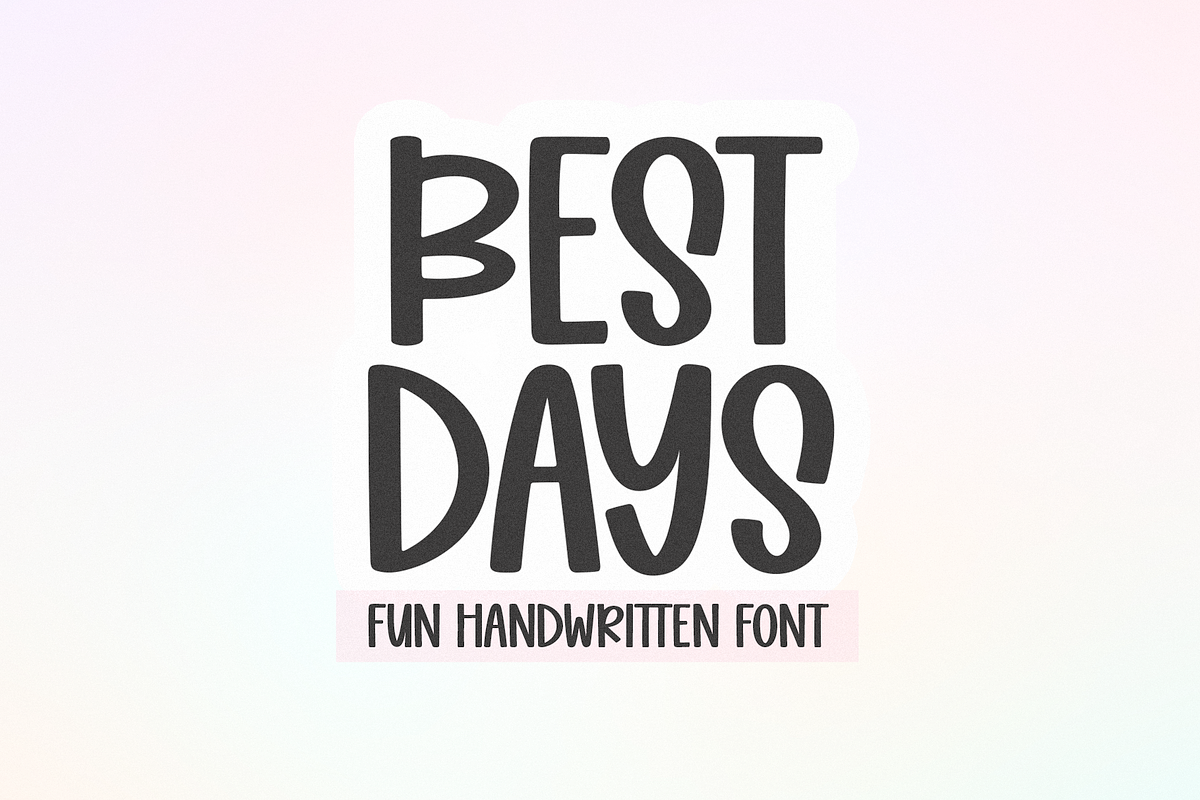
Best Days Fun Handwritten Font Free Download is a cheerful and carefree typeface that captures the joy of everyday moments. With its playful curves, casual strokes, and hand-drawn charm, this font is perfect for greeting cards, planners, social media graphics, lifestyle branding, and DIY projects that need a personal, upbeat vibe.
Designed to feel like a joyful doodle or a handwritten note from a friend, Best Days adds authenticity and warmth to every design. Whether you're creating inspirational quotes or crafting cozy packaging, this font delivers a friendly, feel-good presence.
It’s super versatile, easy to read, and full of personality—great for both digital and print use.